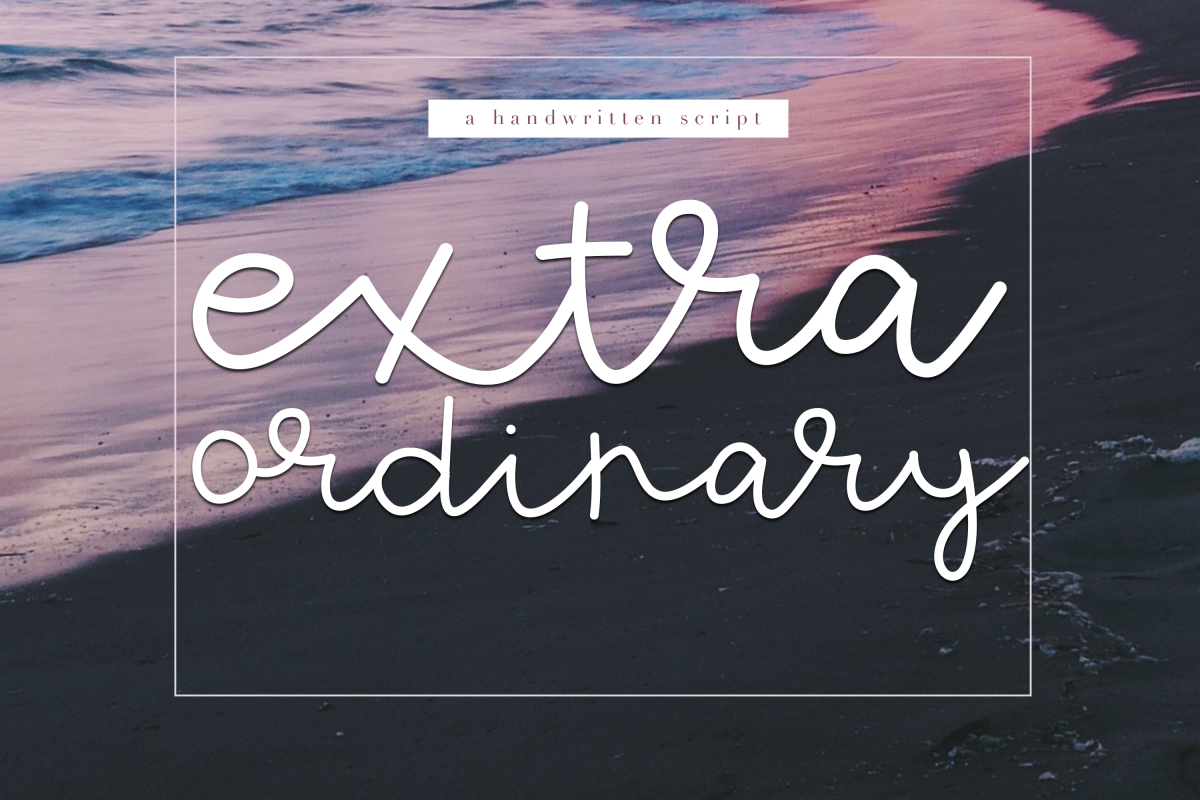
Extraordinary - Handwritten Script Font
Extraordinary
Extraordinary is a handwritten script font - the characters are short and level.
This font is perfect for blogs, logos and advertisements.
This font does not include accent characters.